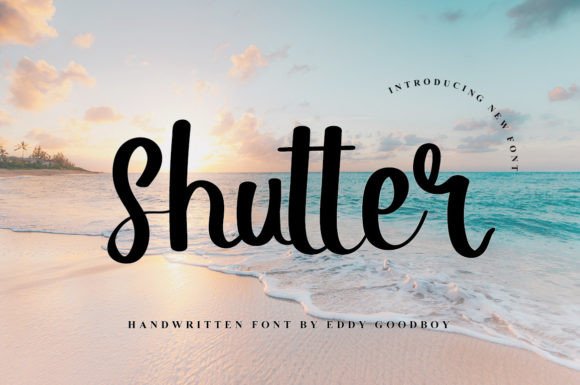
Shutter
About Shutter
Shutter is a modern and tender font. Due to its exclusive calligraphic style, the font will add an incredibly merry touch to your designs.